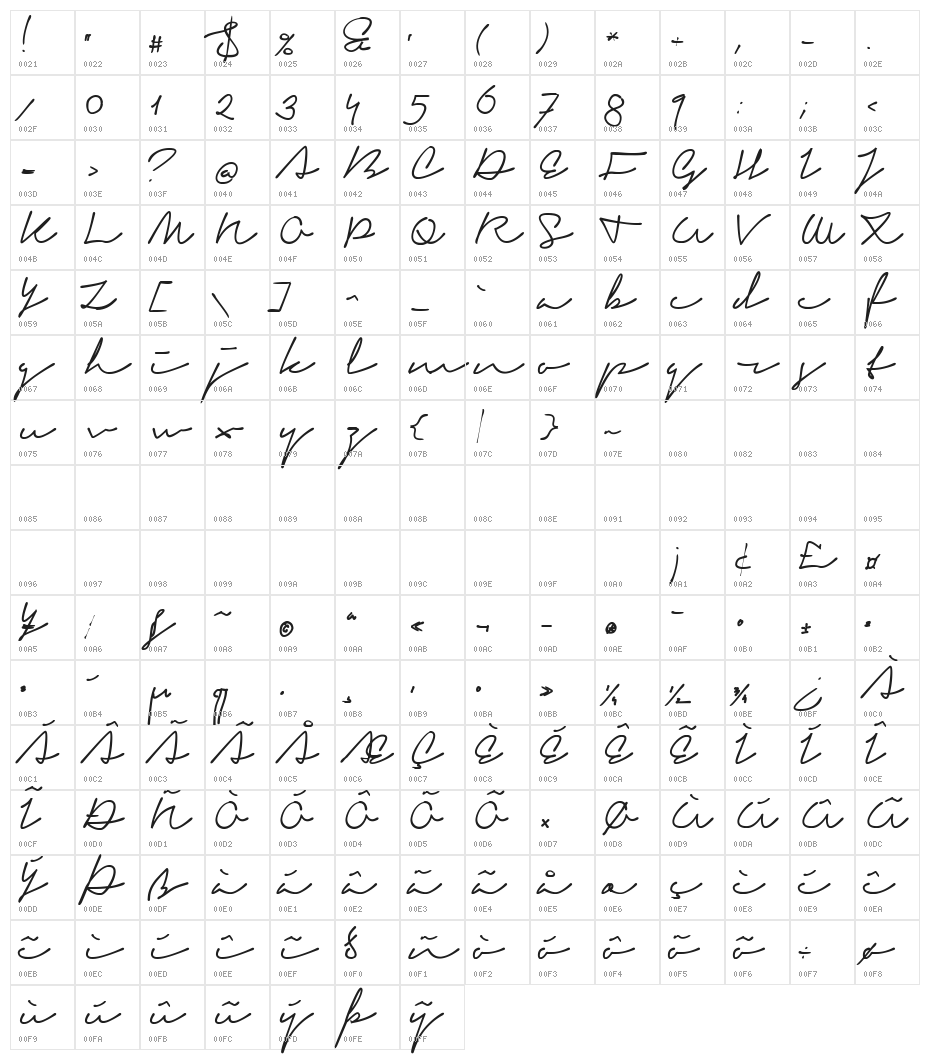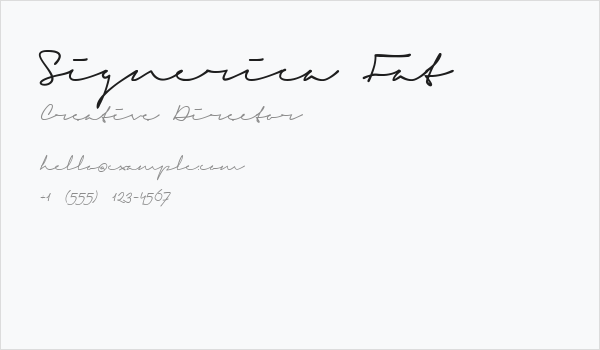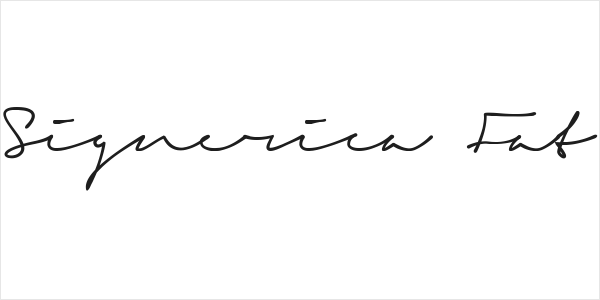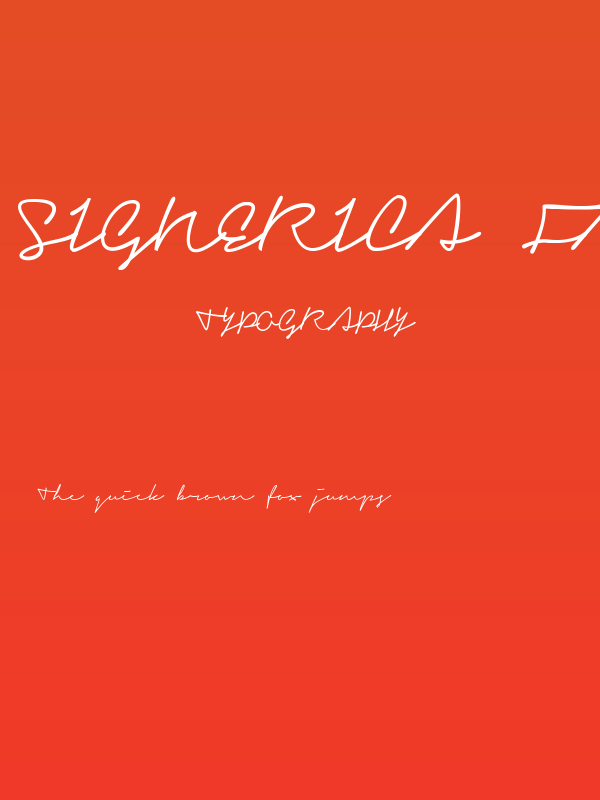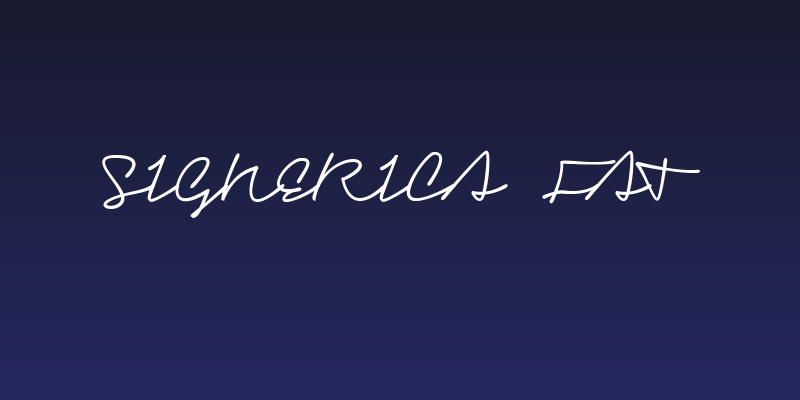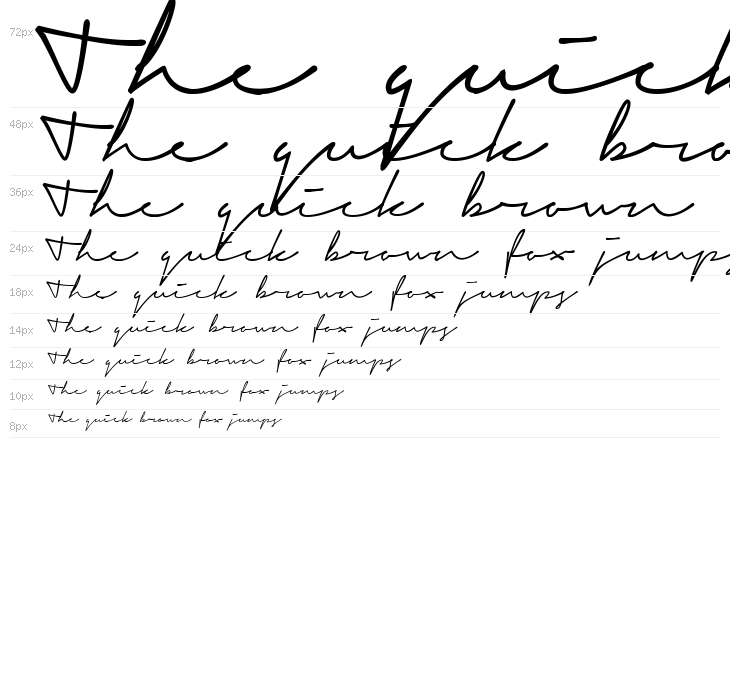
Signerica Fat Font
| Caz de utilizare | Logos, Invitations, Personal Branding |
| Proiecte propuse | Ideal for wedding invitations, personal branding, greeting cards, and any project requiring a personal, elegant touch. |